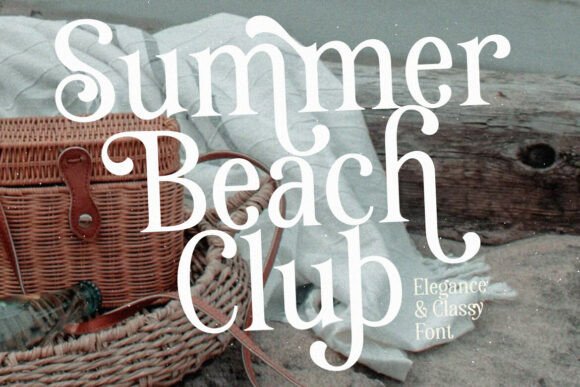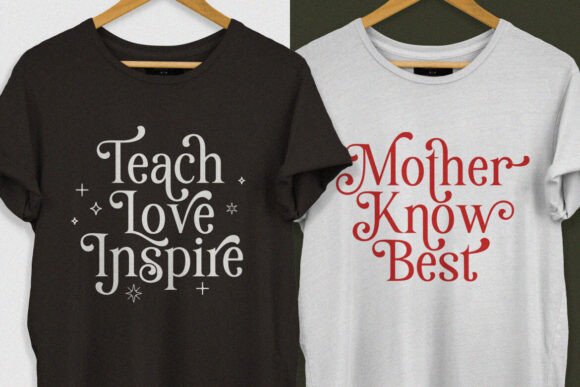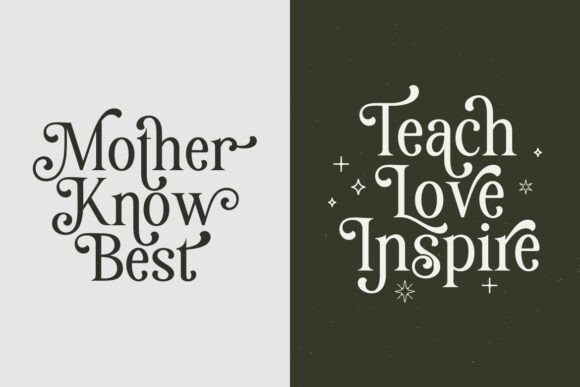
Introduction to History Nineties Font
History Nineties Font is a beautiful and modern display serif font.
It features an incredibly feminine and retro style, while still keeping a elegant feel History Nineties is the perfect font for making designs project especially for those of you who want something unique with a smooth swash style in every characters on your logo or brand.
Key Features of History Nineties Font